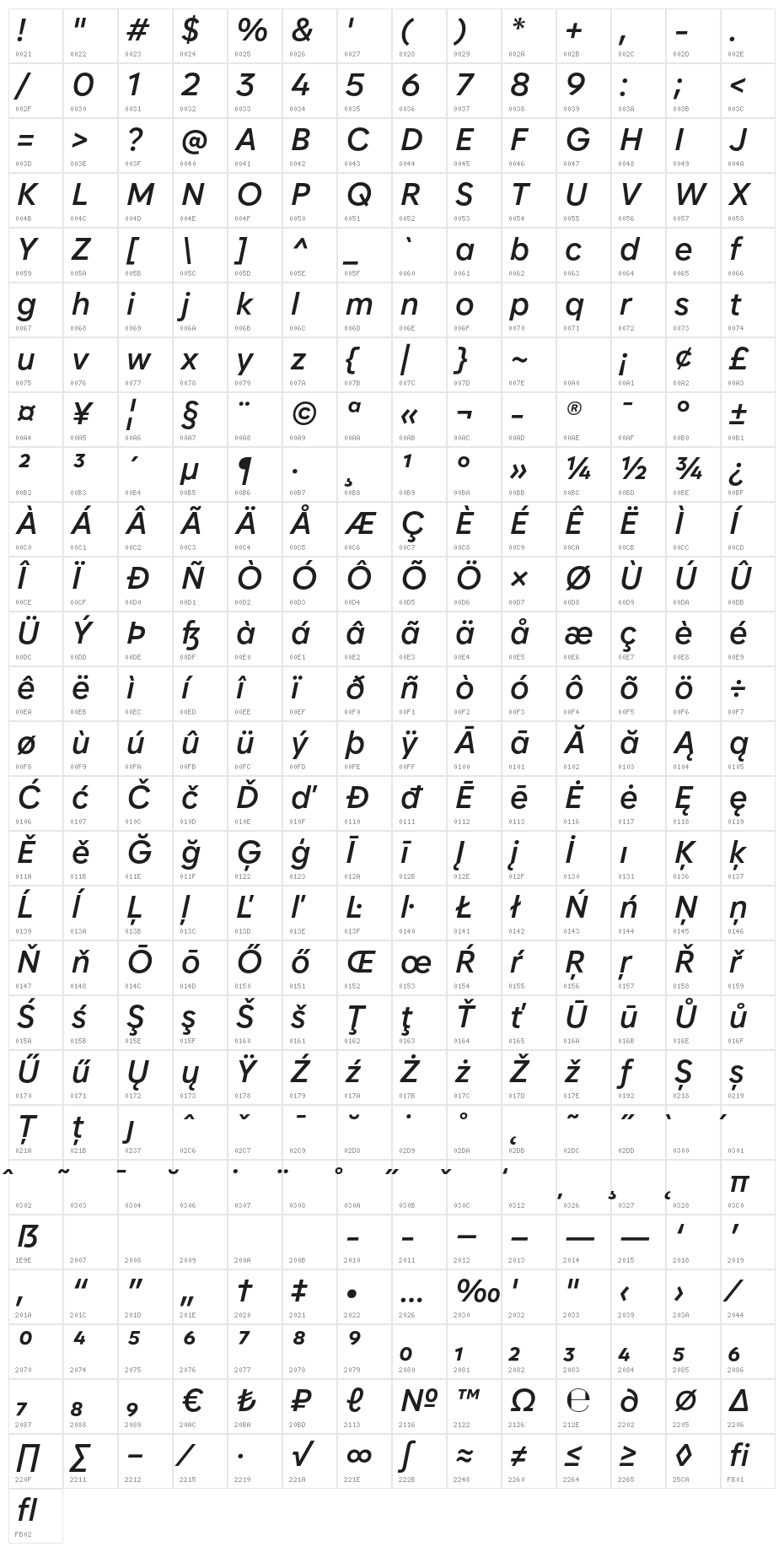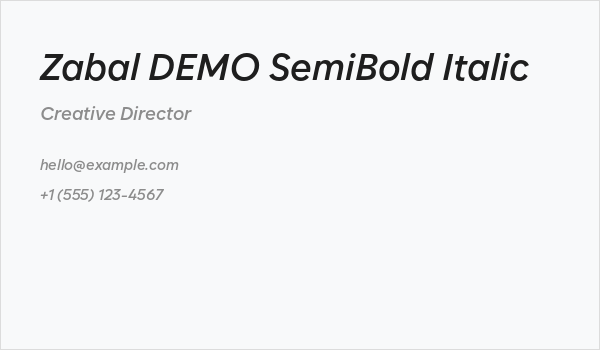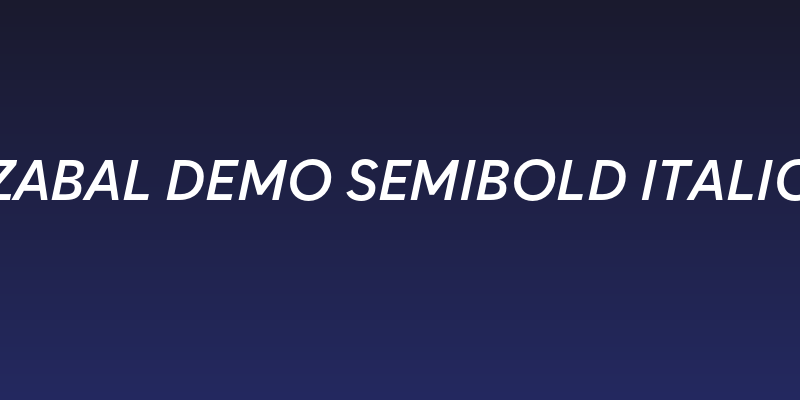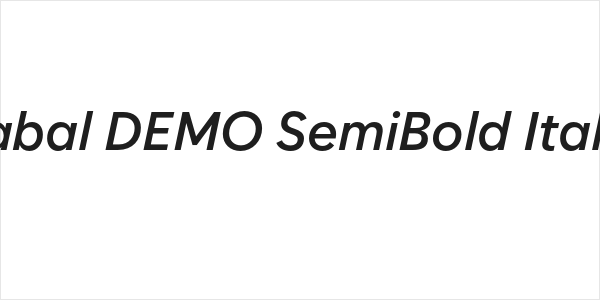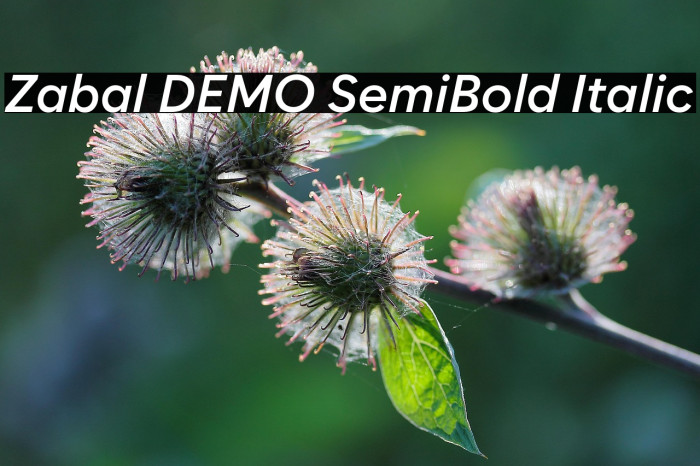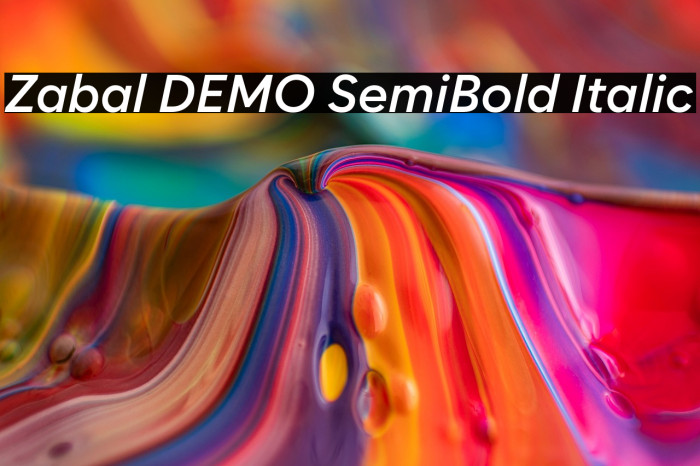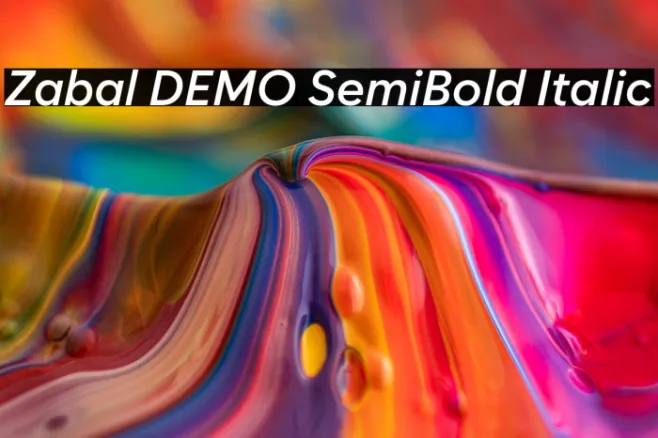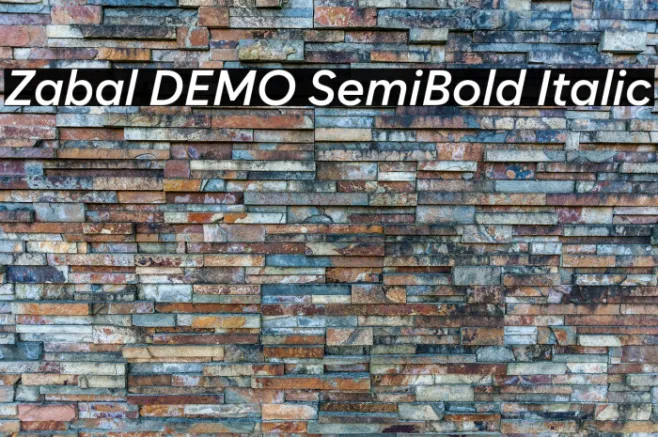
Zabal DEMO SemiBold Italic Font
Zabal DEMO SemiBold Italic Description
This font features a sleek, modern design with a semi-bold weight and italic style. The characters exhibit a smooth curvature and consistent stroke width, providing a balanced and professional appearance. The uppercase letters are slightly taller than the lowercase, maintaining a harmonious proportion. The numerals are clear and legible, making them suitable for various applications. Special characters are well-defined, enhancing the font's versatility. The overall design is clean and contemporary, making it suitable for a wide range of uses.
| Proposed Projects | Ideal for branding, advertising, editorial design, and digital interfaces where a modern and professional look is desired. |